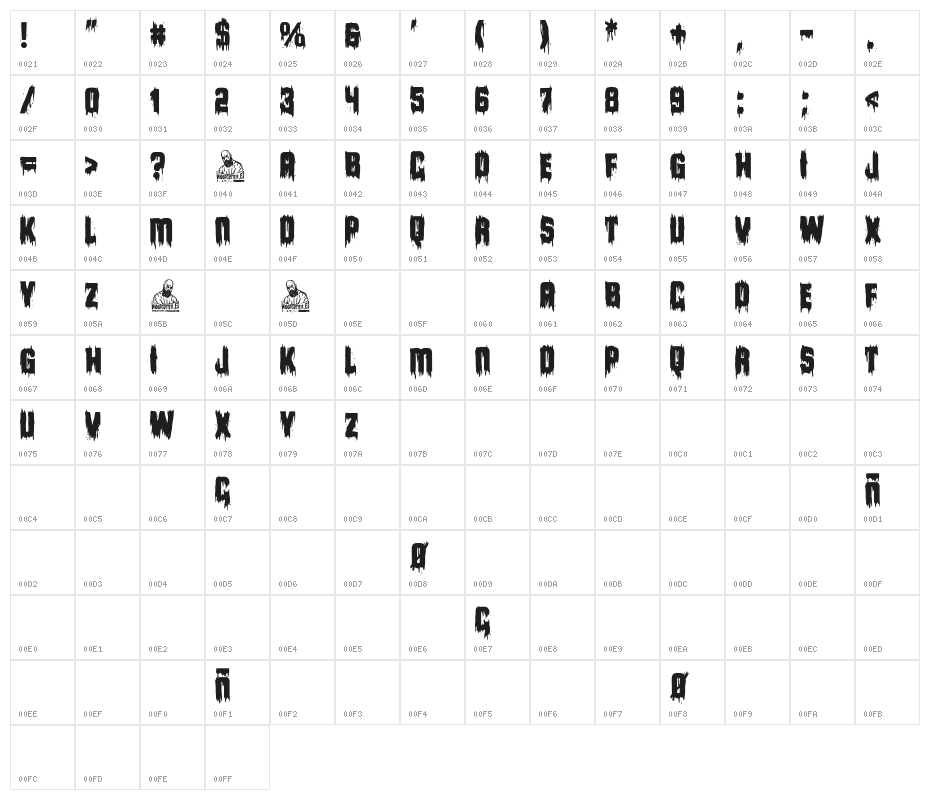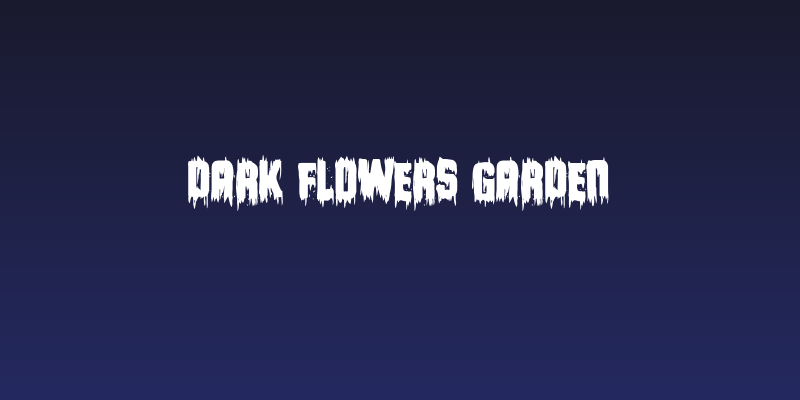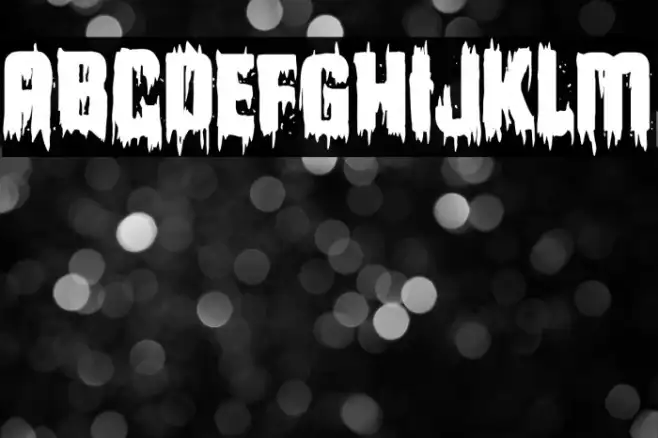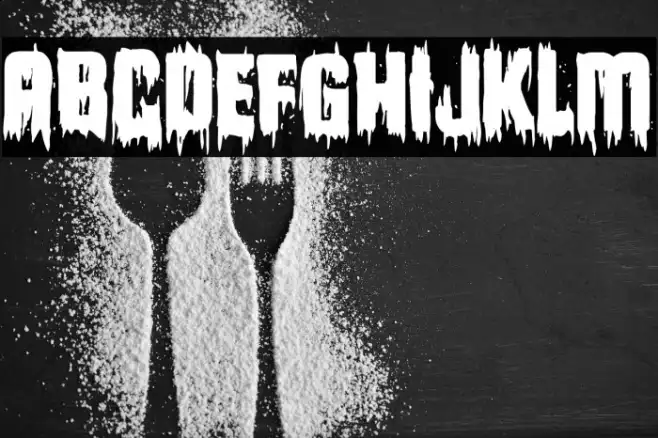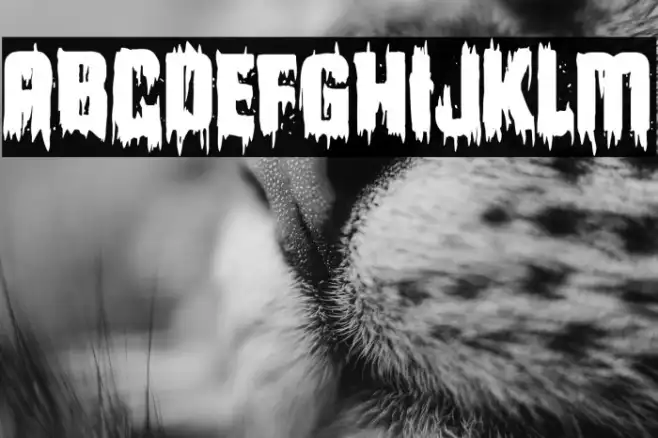
Dark Flowers Garden Font
Dark Flowers Garden Description
This font features a dramatic and eerie style, with characters that appear to be dripping or melting, reminiscent of horror or Halloween themes. The uppercase and lowercase letters, as well as numbers and special characters, maintain a consistent, bold appearance with jagged edges and irregular forms, enhancing the unsettling aesthetic. The design is highly decorative, making it suitable for thematic projects that require a strong visual impact. The font's unique style captures attention and evokes a sense of mystery and darkness.
| Proposed Projects | Ideal for Halloween posters, horror movie titles, themed event invitations, and spooky merchandise designs. |